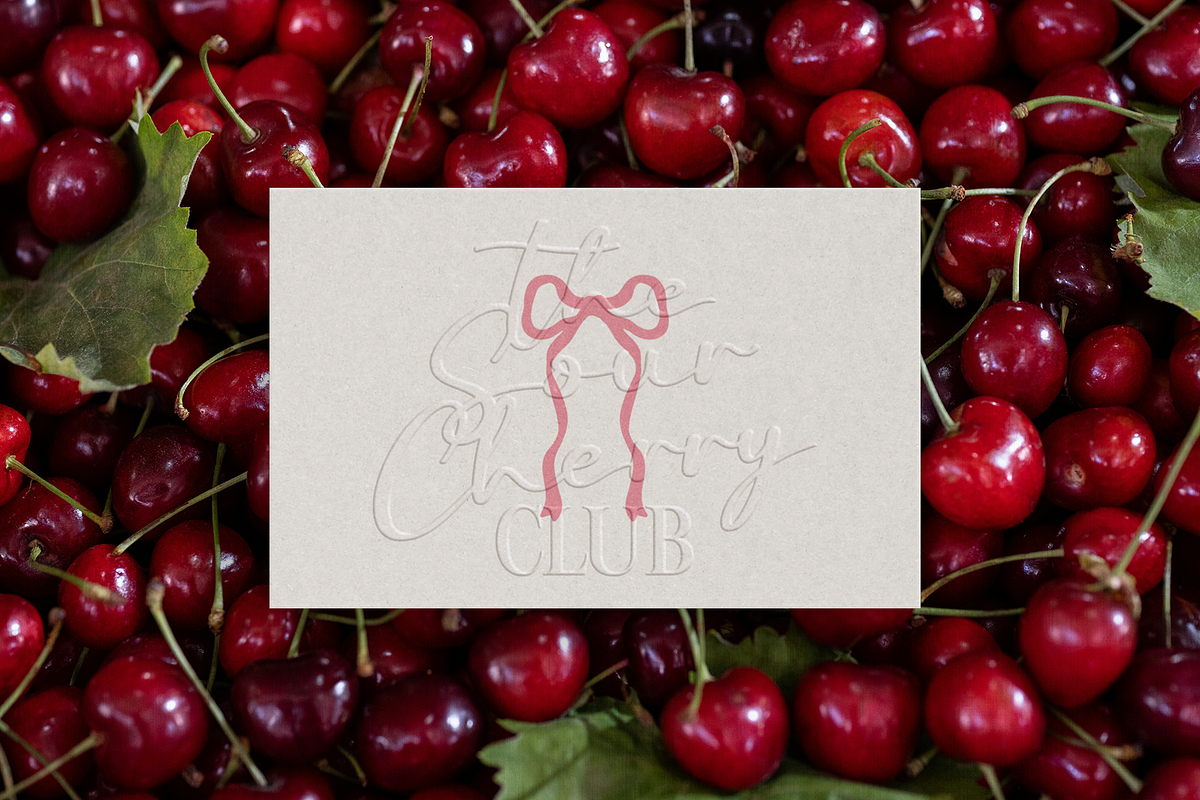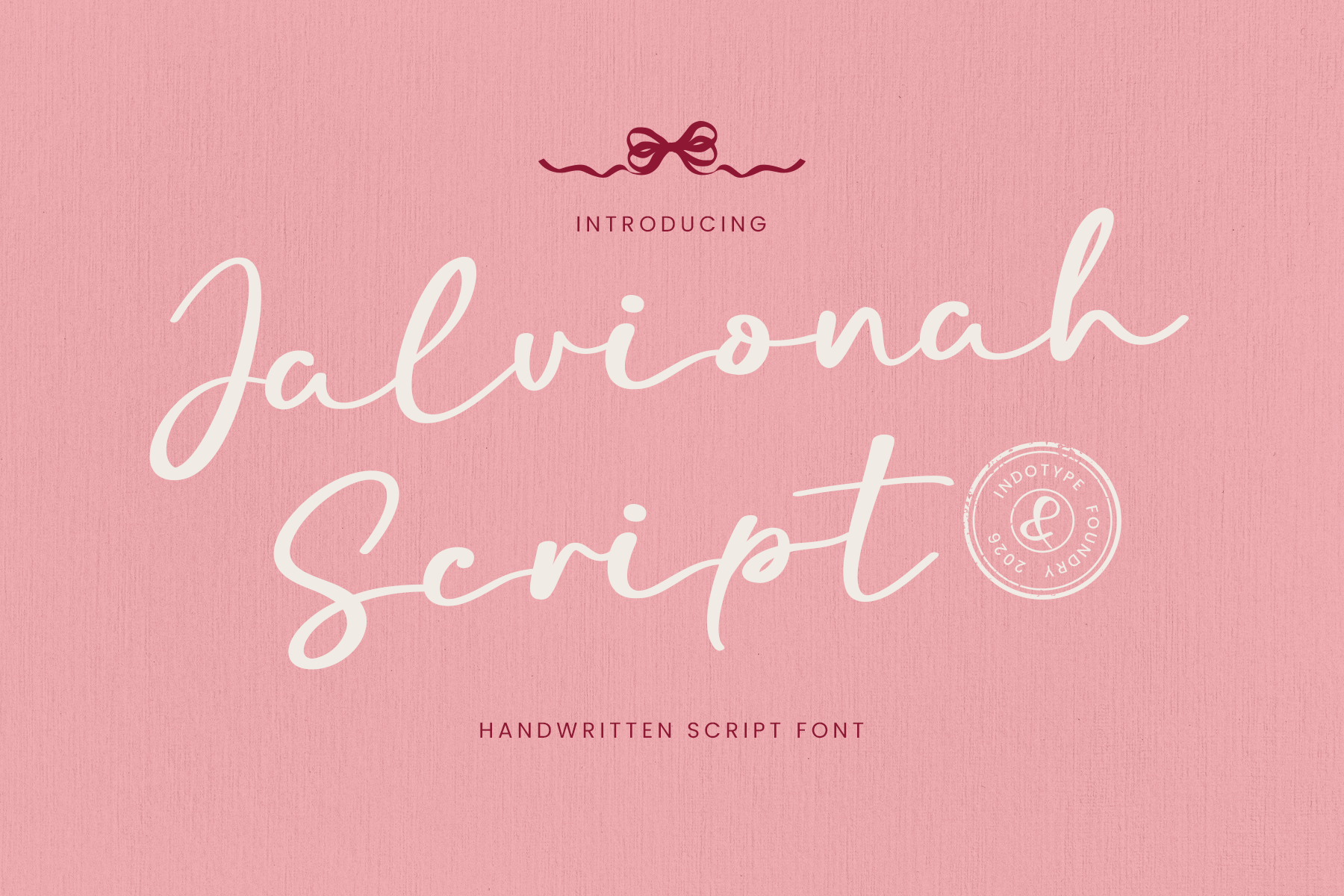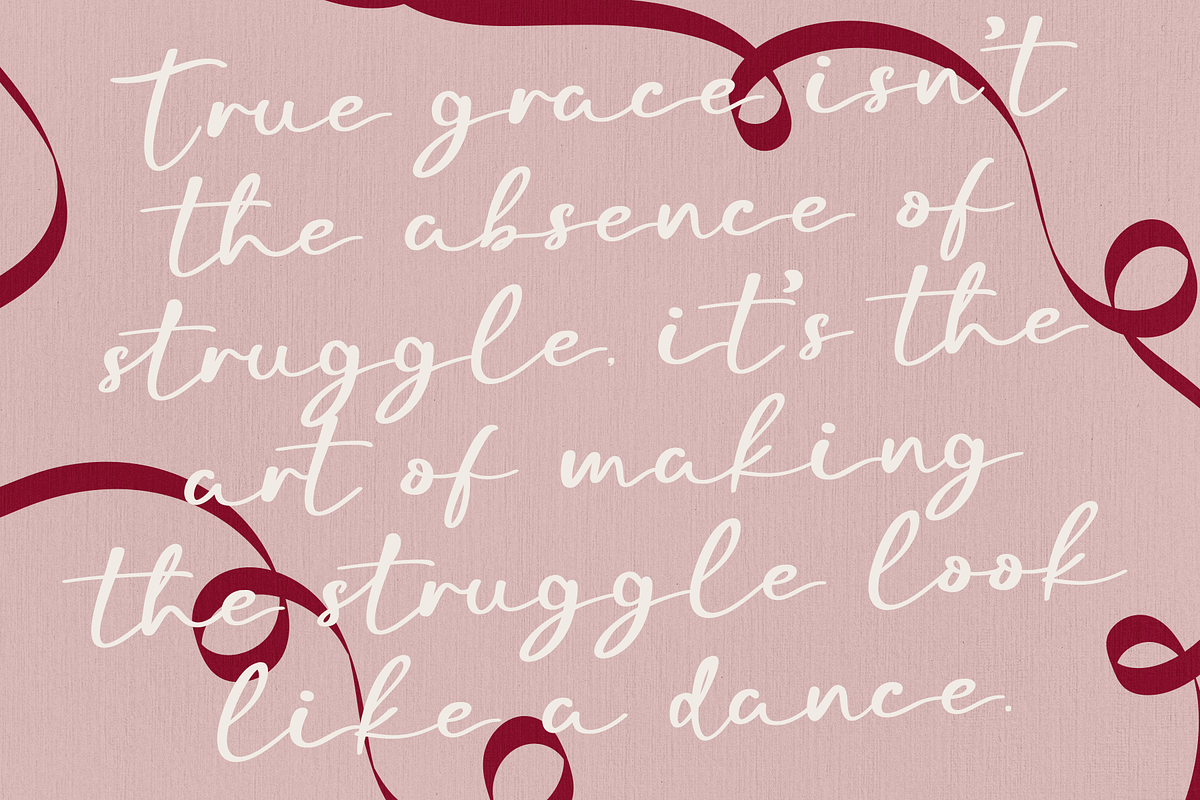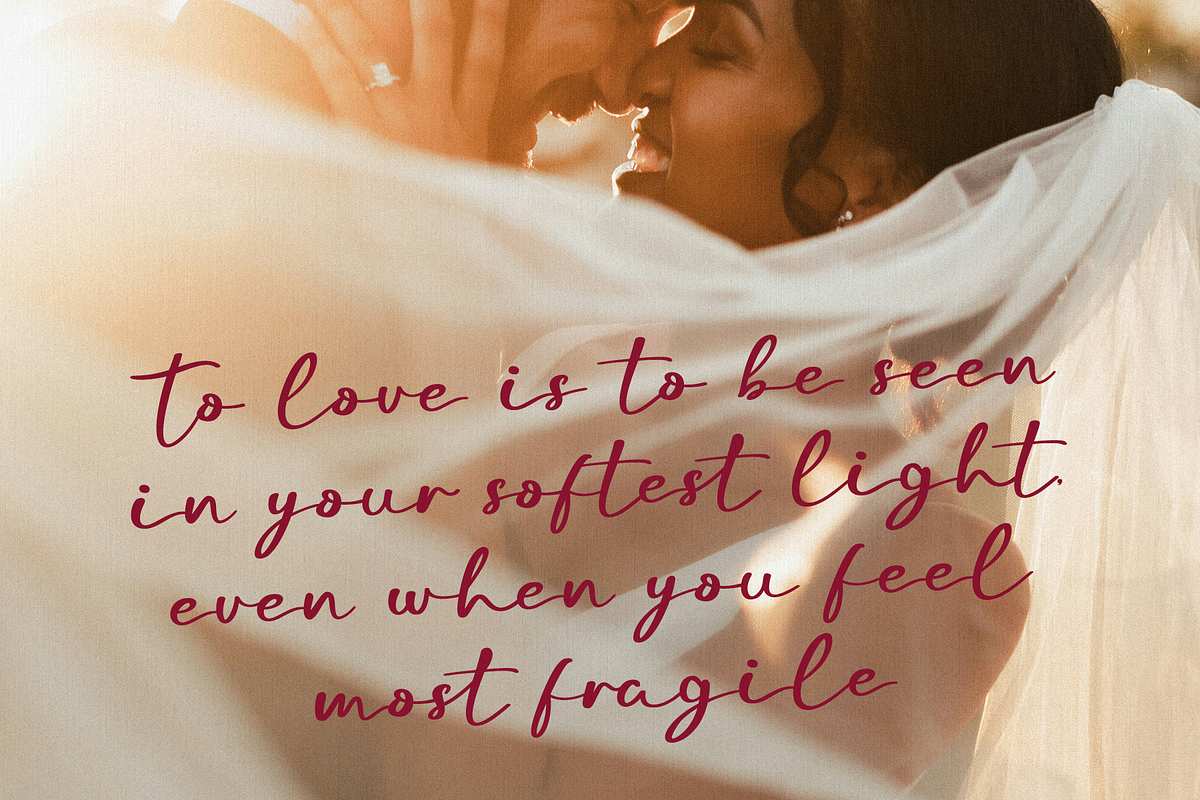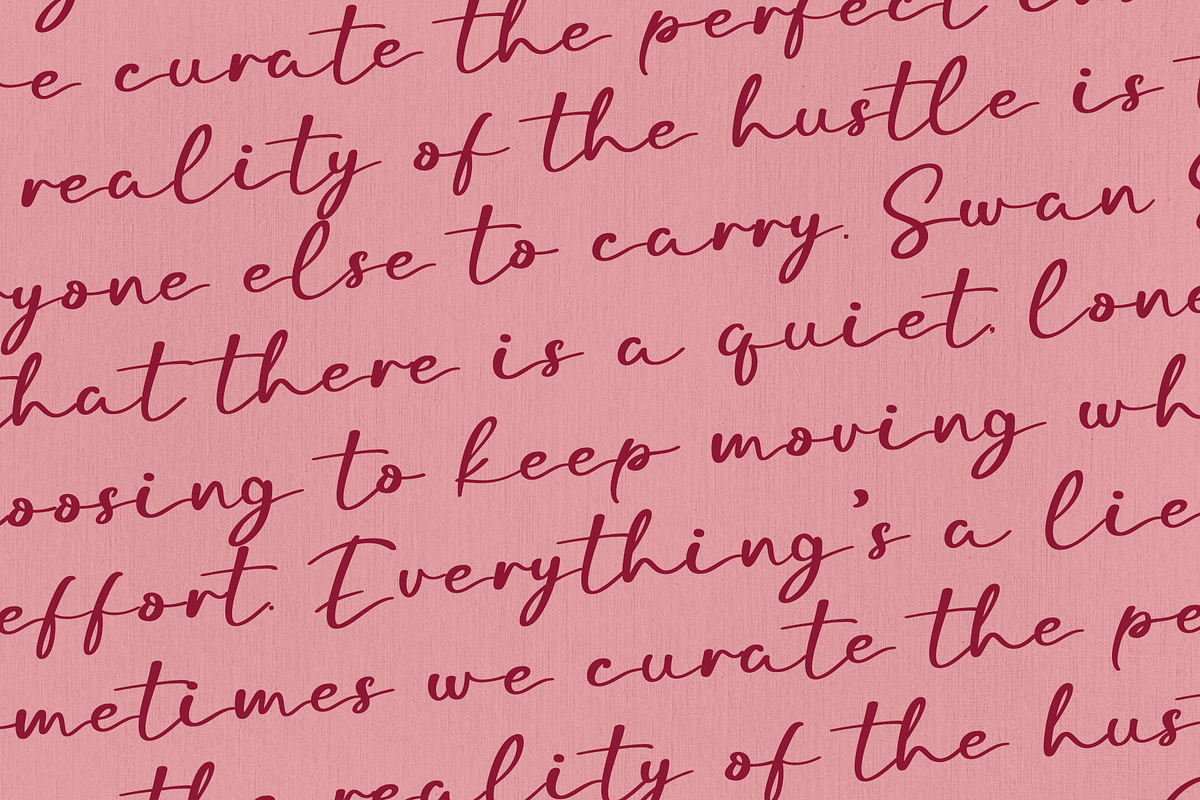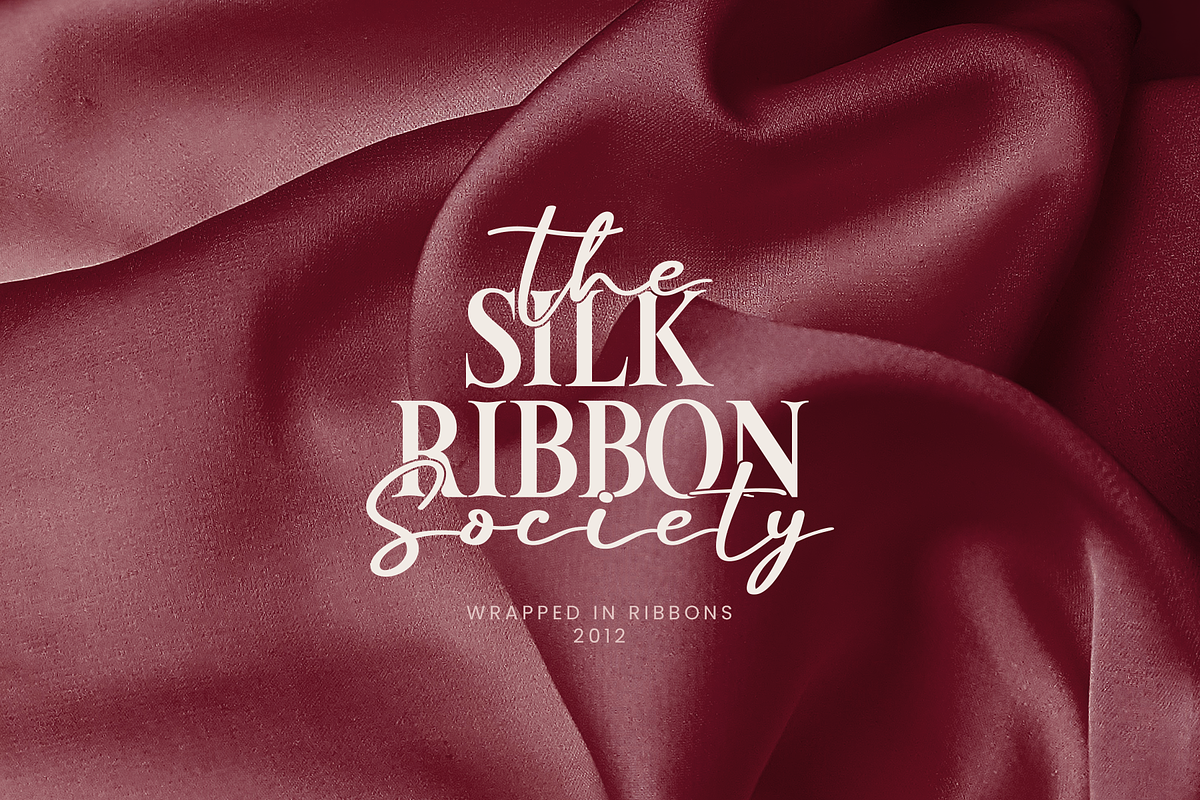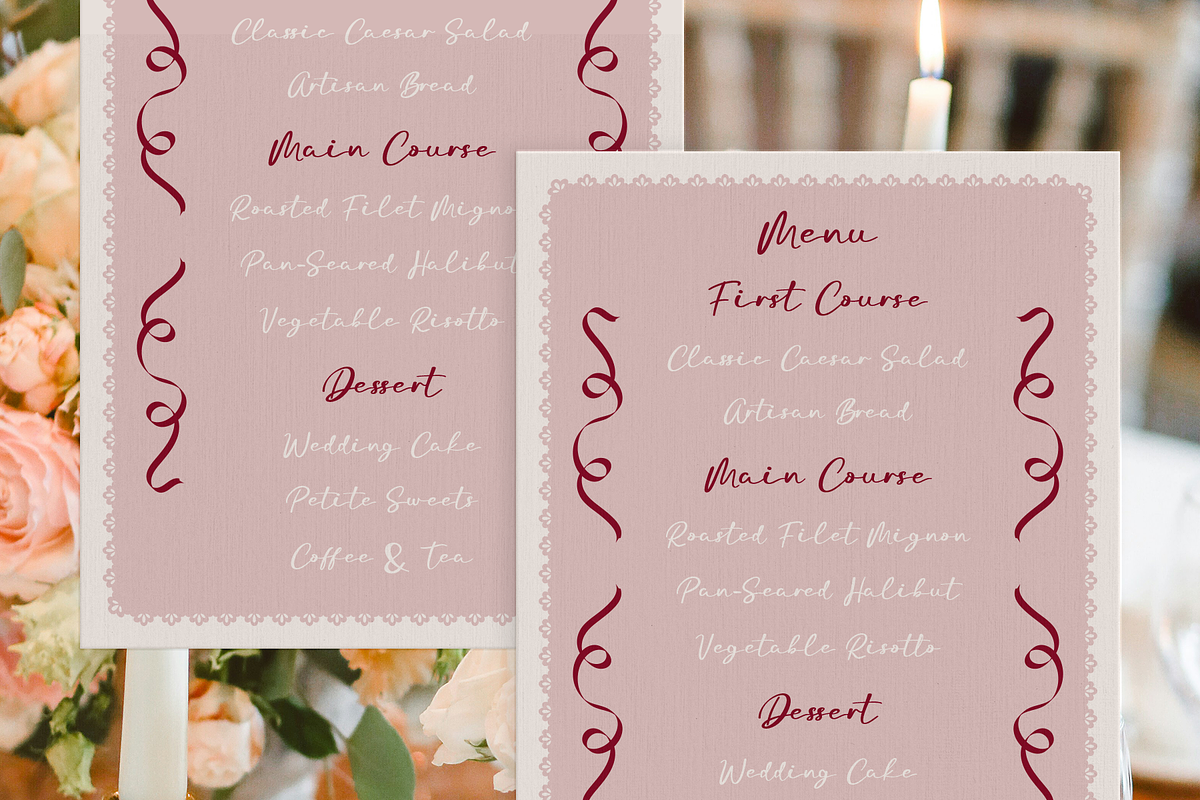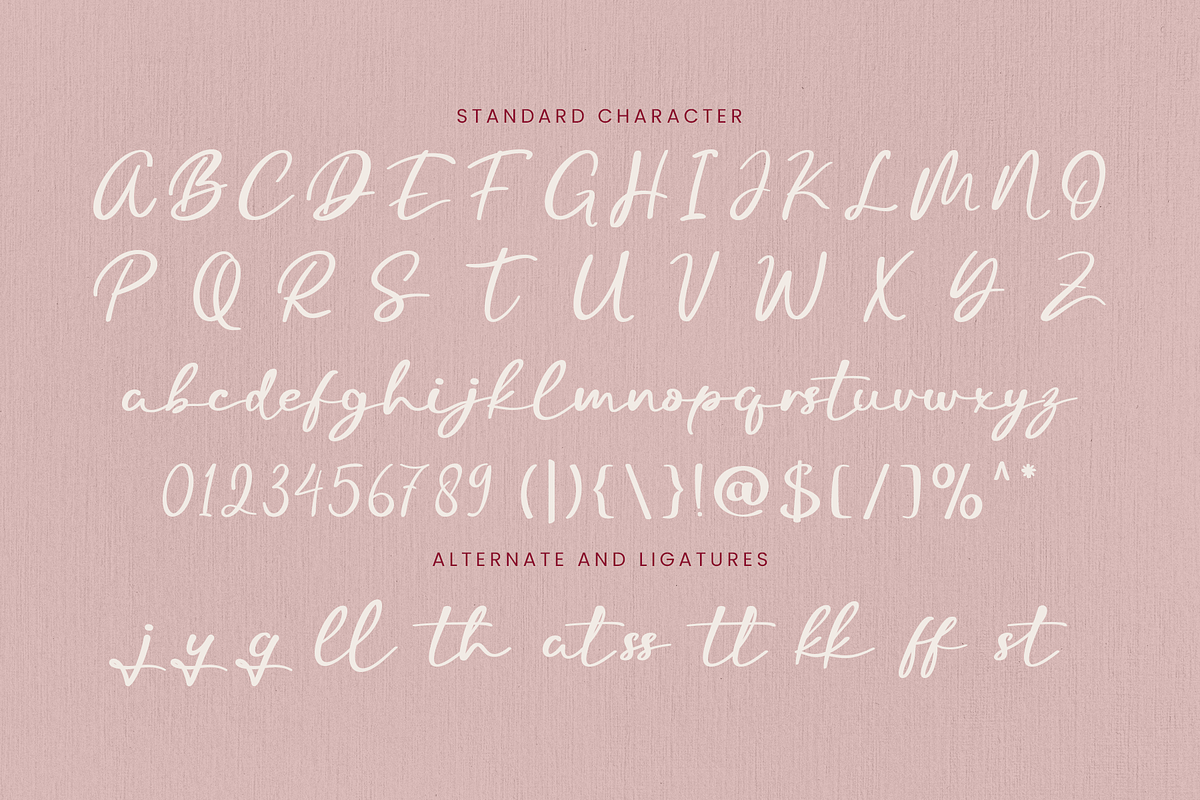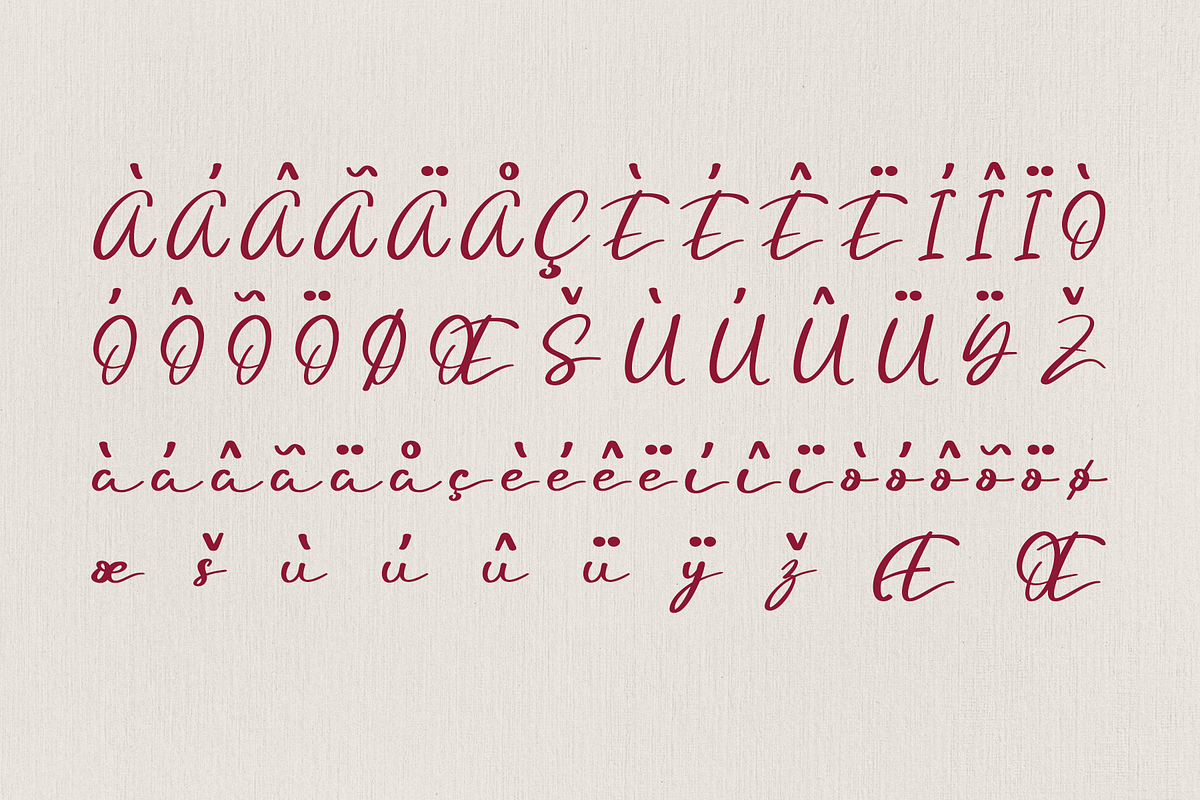
Jalvionah - Script Font
Jalvionah is an exquisitely crafted handwritten script font that embodies grace, sophistication, and timeless beauty. Its fluid, connected letterforms feature elegant swashes, delicate terminals, and a natural variation in stroke weight that mimics the artistry of pointed pen calligraphy. This font strikes the perfect balance between organic flow and refined control, making it feel both personal and professionally luxurious. Designed for projects that demand an air of romance and sophistication, Jalvionah is the ideal choice for luxury wedding invitations, high-end beauty branding, fashion labels, and any design that seeks to convey elegance and heartfelt craftsmanship. It adds a touch of bespoke, handcrafted luxury to logos, packaging, and stationery, turning words into works of art.
- Ideal for: Luxury Wedding Invitations & Stationery, High-End Beauty & Fashion Branding, Perfume & Cosmetic Packaging, Elegant Logotypes, Fine Dining Menus, Sophisticated Social Media.
- Classification: Script, Handwritten, Calligraphic, Formal.
- Attributes: Elegant, Graceful, Romantic, Sophisticated, Fluid, Luxurious, Bespoke.